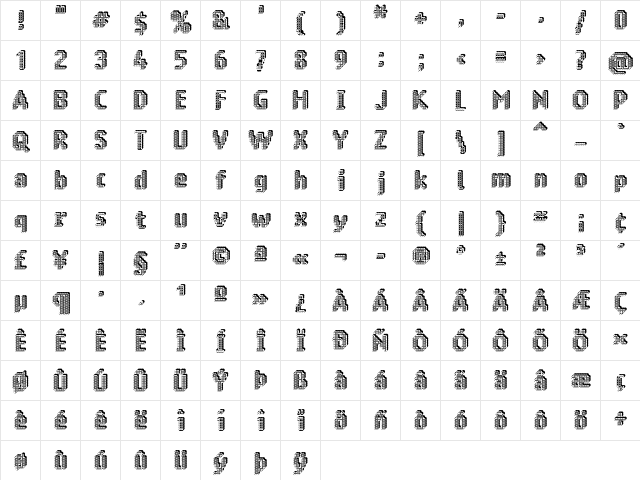
Ring Matrix 3D Regular Free Font
Ring Matrix 3D Regular
Foundry: Peter Wiegel
Designer: Peter Wiegel
Design Context for Ring Matrix 3D
Ring Matrix 3D is a composed and adaptable typeface that performs quietly and consistently across a wide range of design contexts.
Who designed the Ring Matrix 3D Regular font?